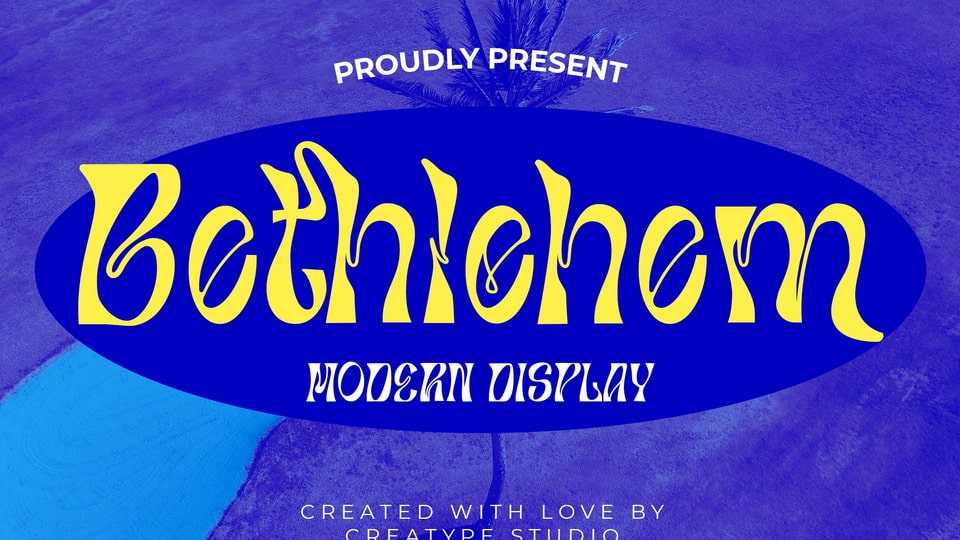
Download Bethlehem font, the type of typeface that has a unique and attractive look. The glistening typeface design on Bethlehem will look perfect when combined with a solid character typeface.